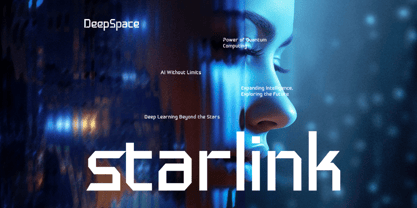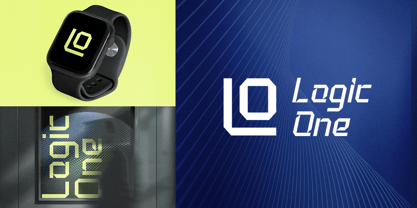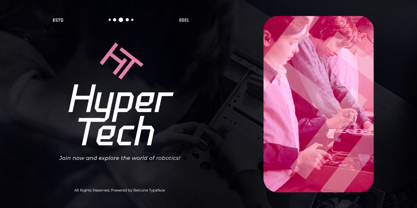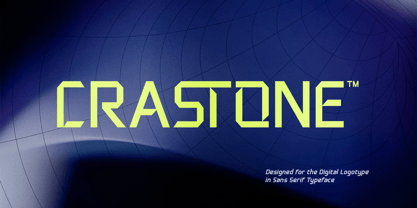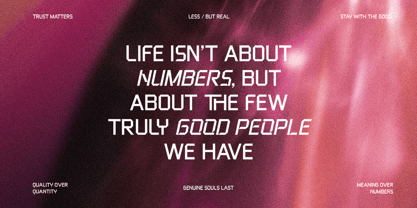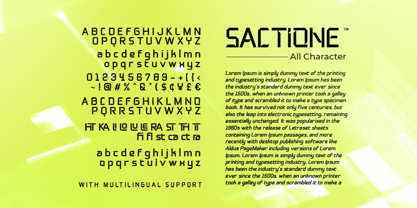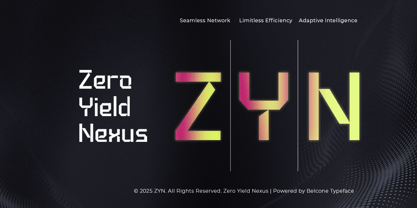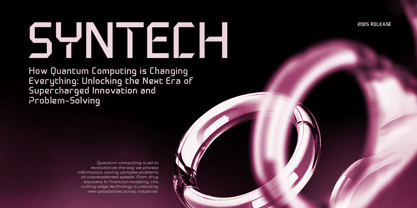
Crastone
The Crastone Font Family was designed by Dzikrul Aulia and published by Bale Type. Crastone contains 2 styles and family package options.
Crastone is a digital logo font based on sans serif with futuristic and modern looks. Coming with stylish uppercase and lowercase, you can make your logo looks more clean and modern. This font also including ligatures and cut off that will make your project looks more interesting. You can use this font for branding, logo, and designs that require high technology looks. This font also support multilingual.